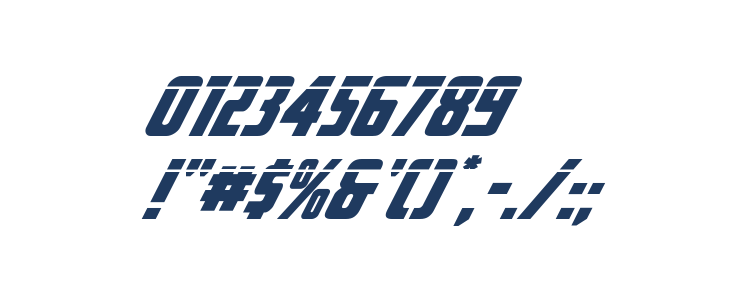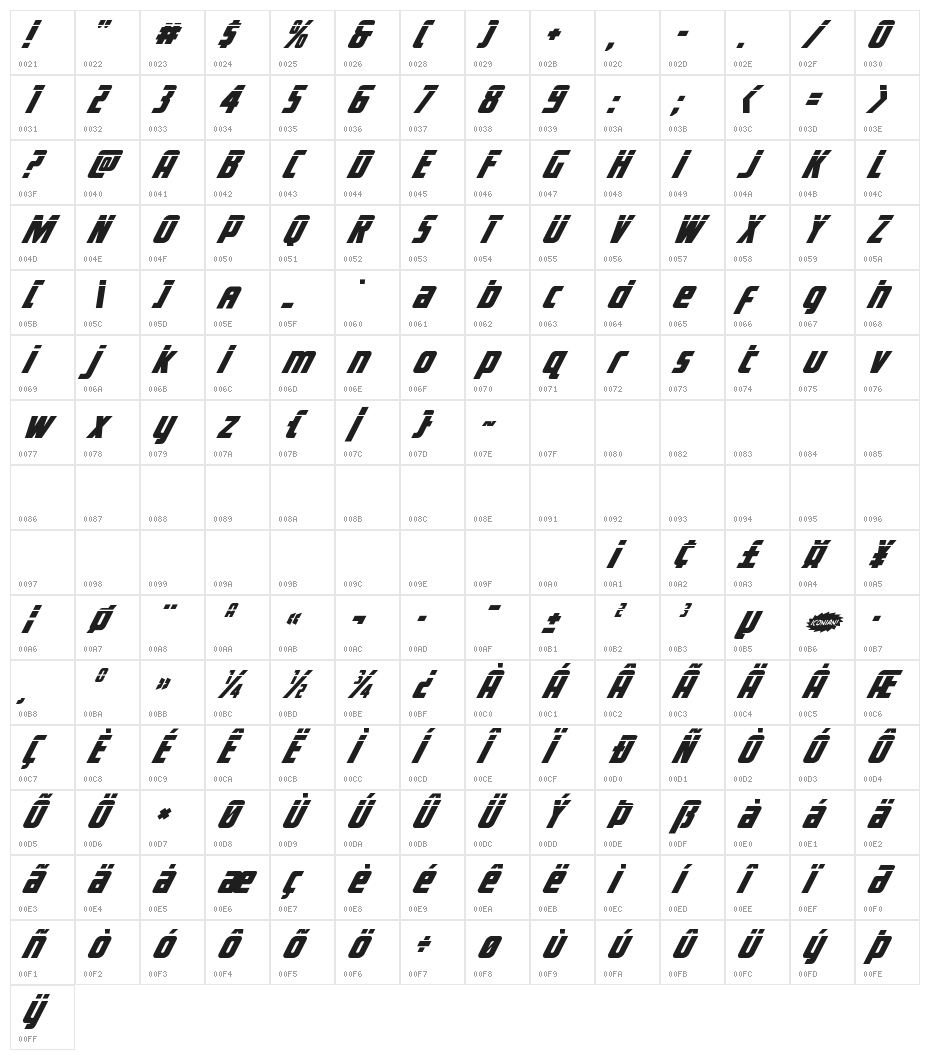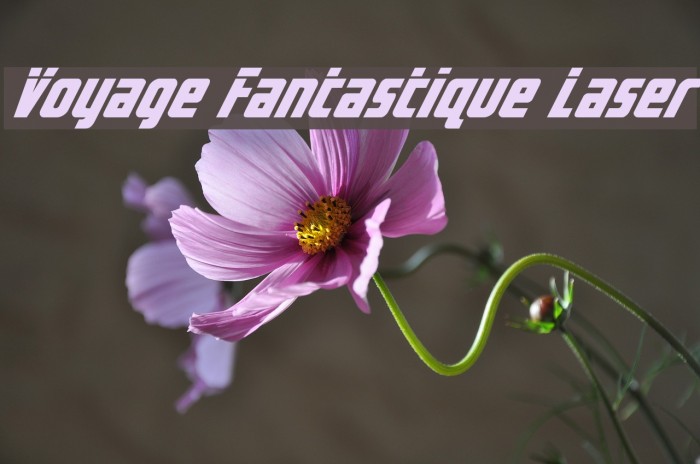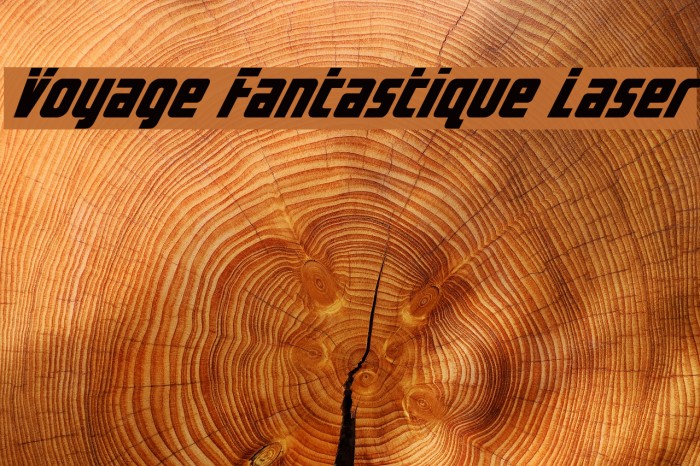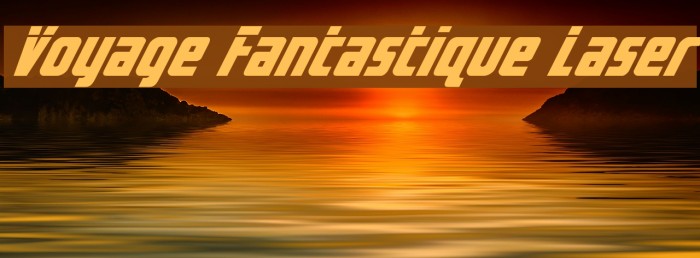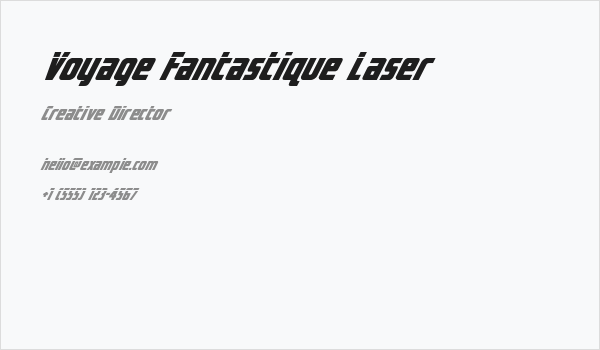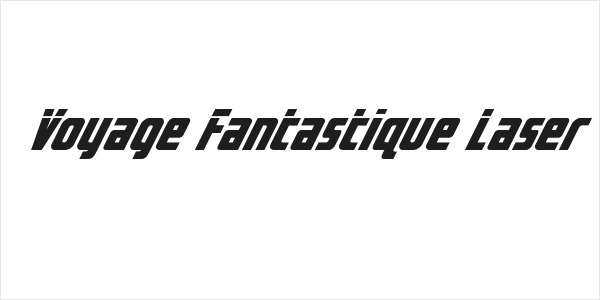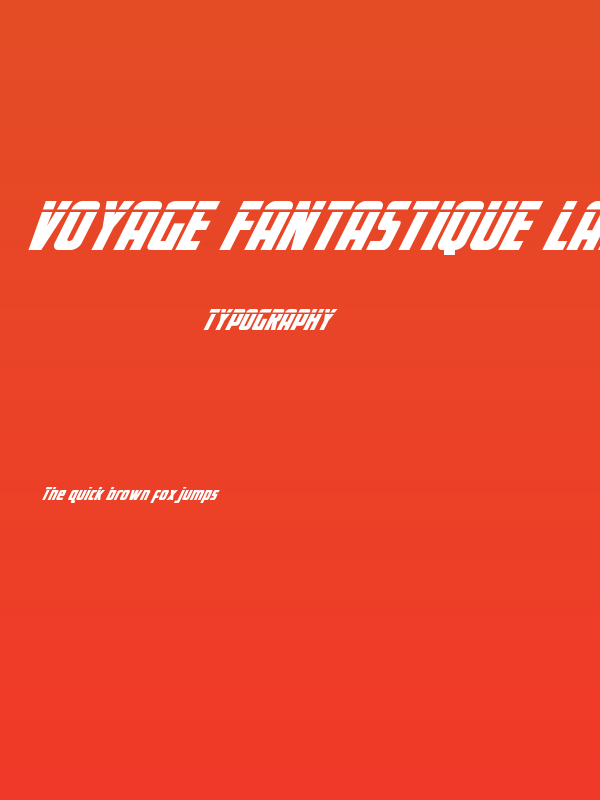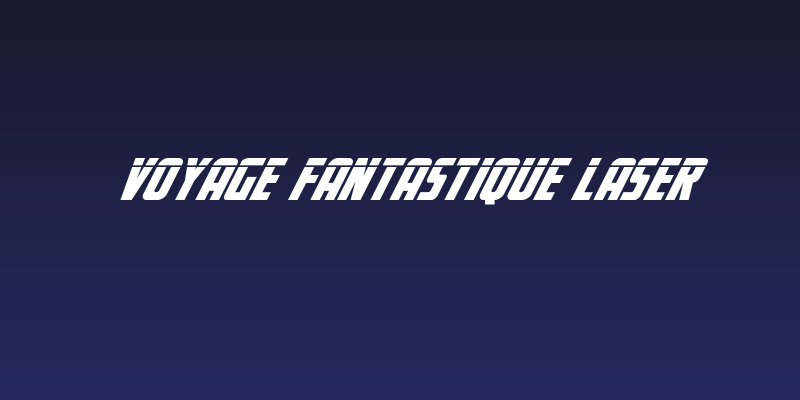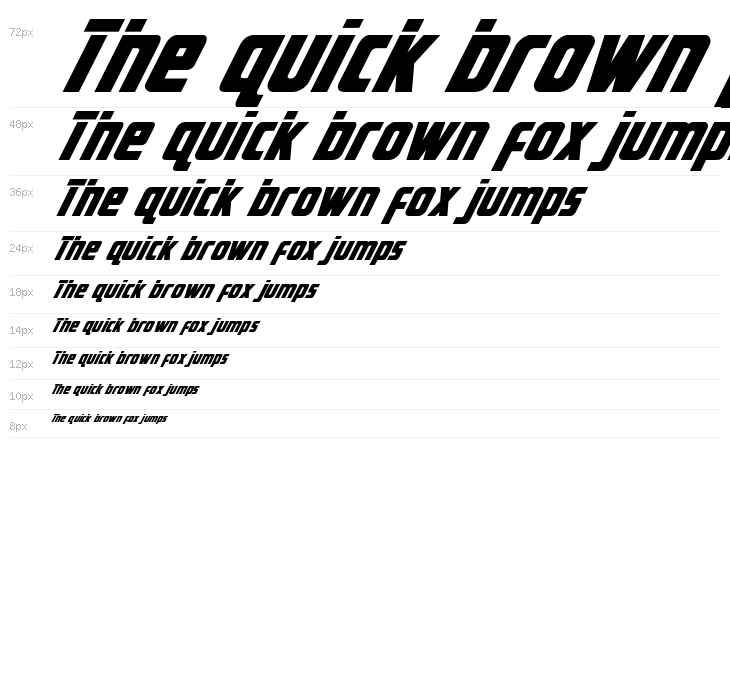
Voyage Fantastique Laser Font
Voyage Fantastique Laser Description
This font features a bold, futuristic design with sharp angles and a dynamic slant, giving it a sense of movement and energy. The uppercase and lowercase letters maintain a consistent style, with thick strokes and a slightly condensed form. The numbers and special characters follow the same aesthetic, ensuring uniformity across all elements. The font's aggressive and modern appearance makes it ideal for projects that require a strong visual impact.
| Proposed Projects | Ideal for sci-fi themed designs, video game titles, movie posters, and branding that requires a modern, energetic look. |